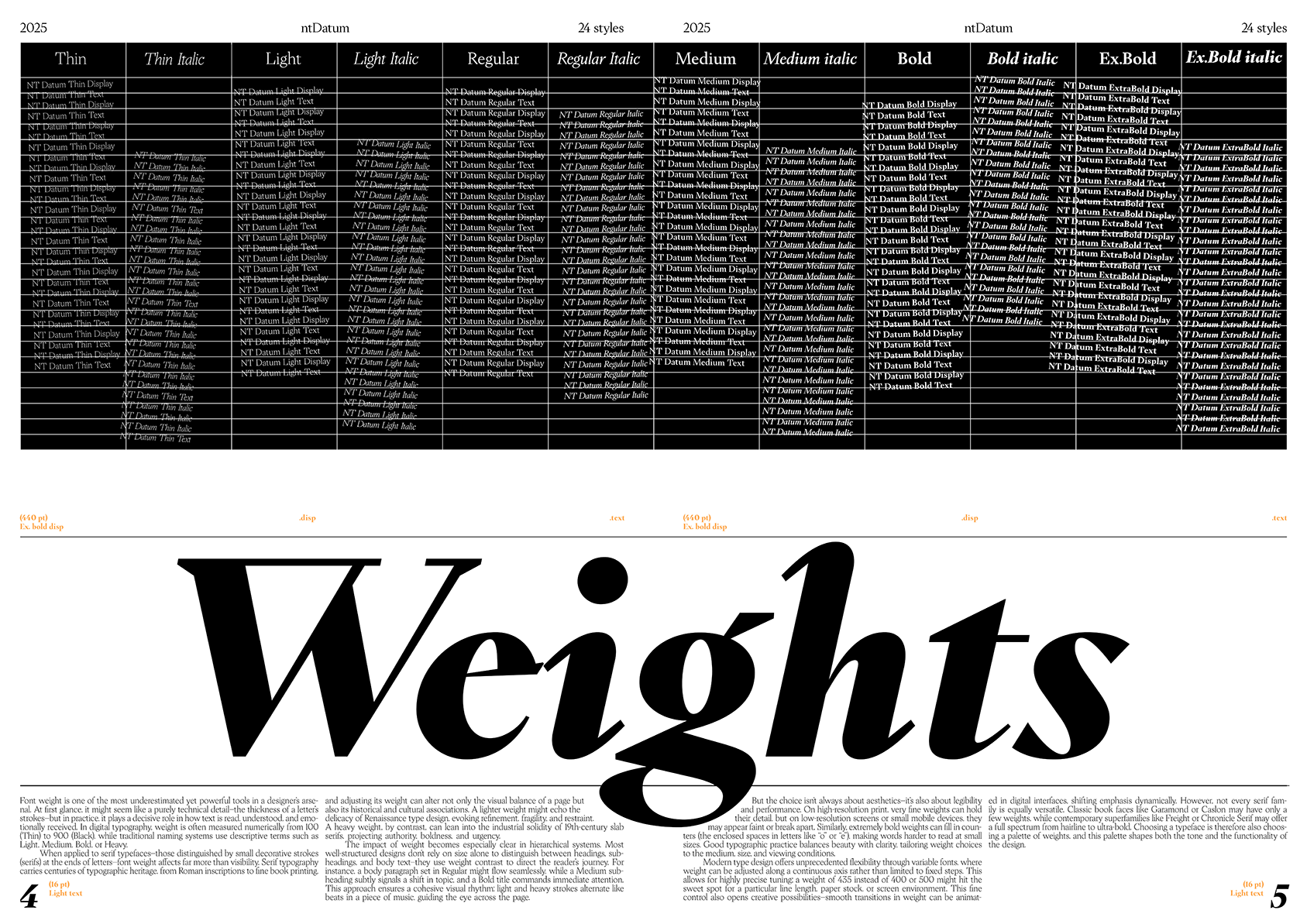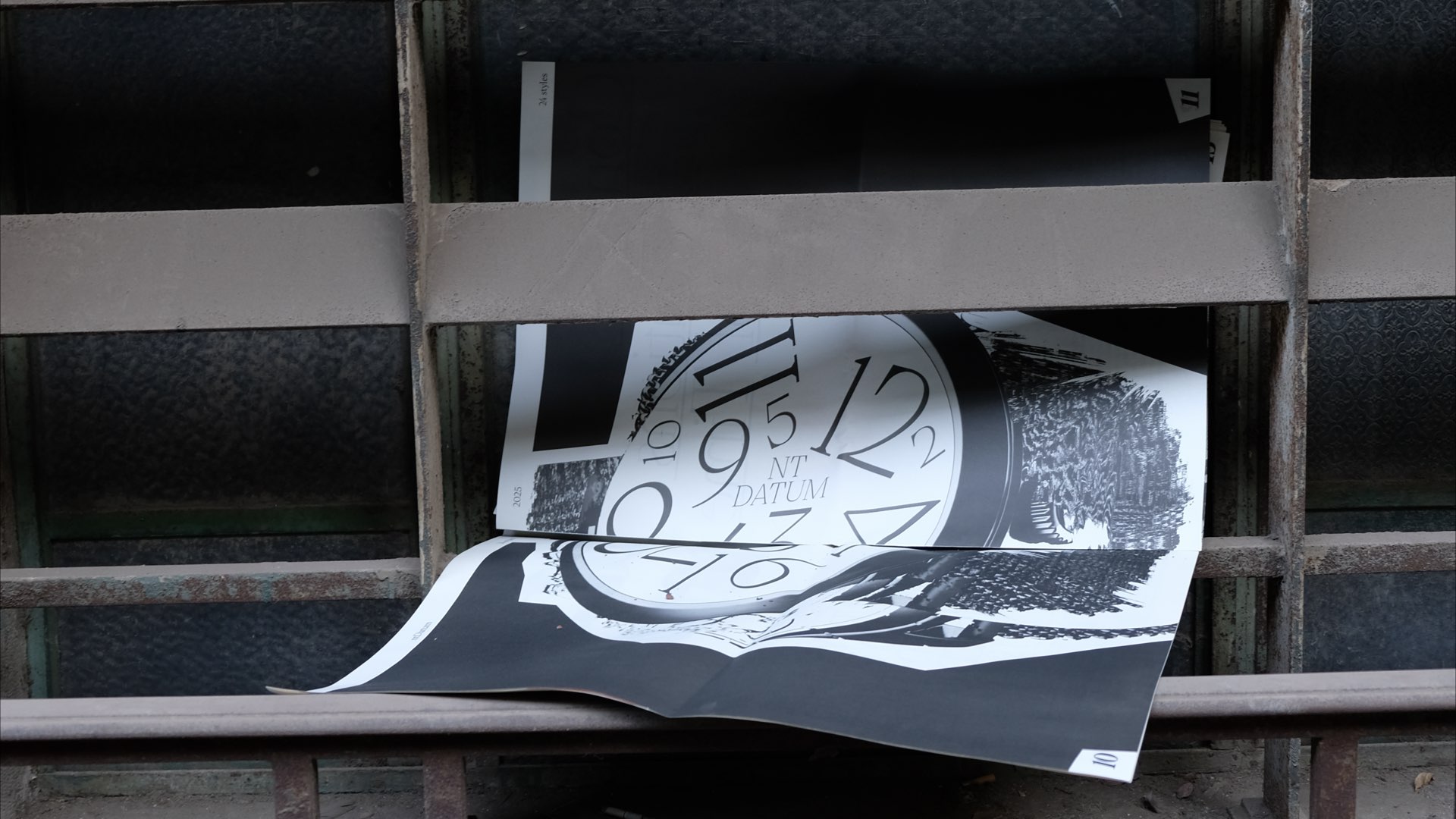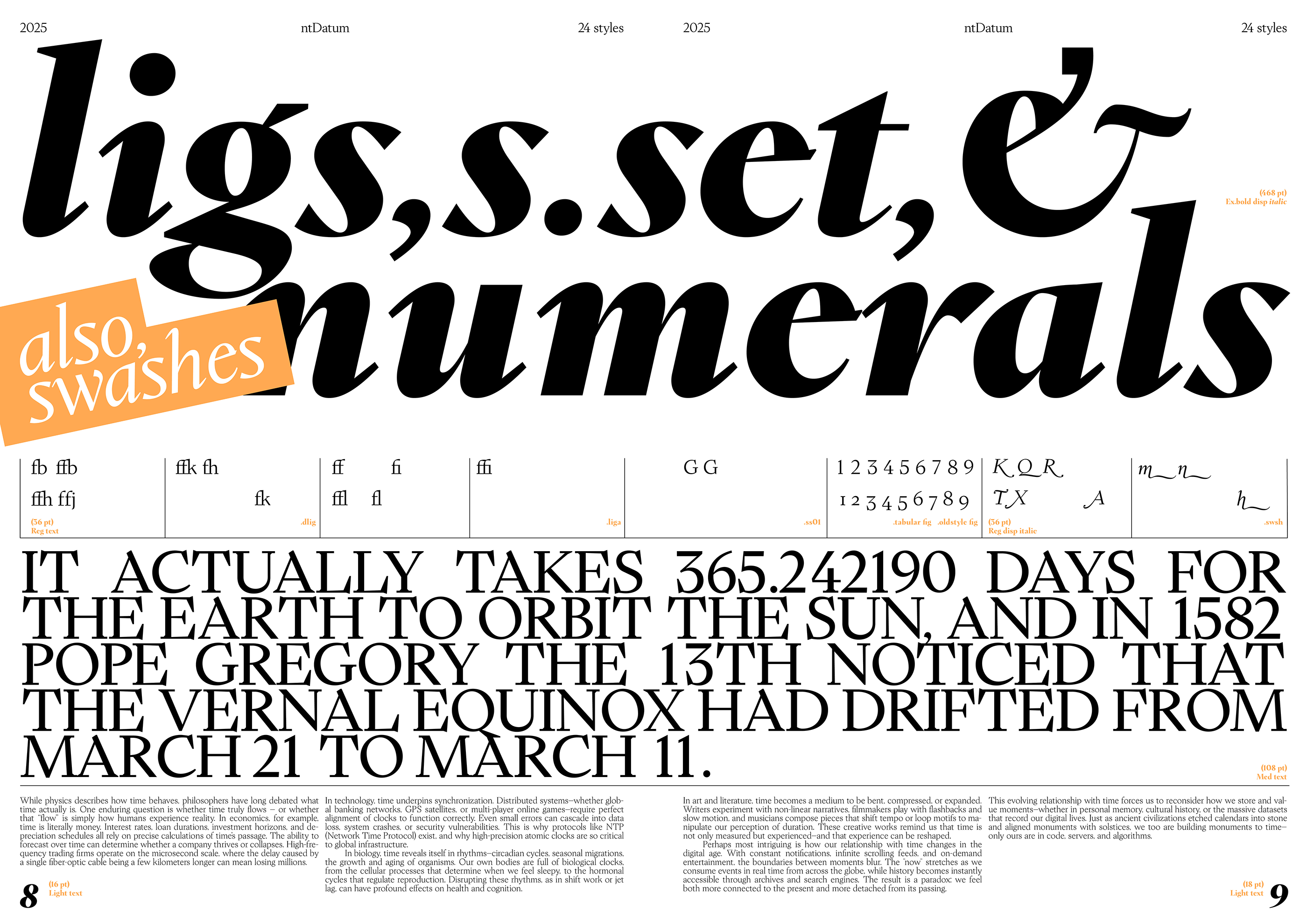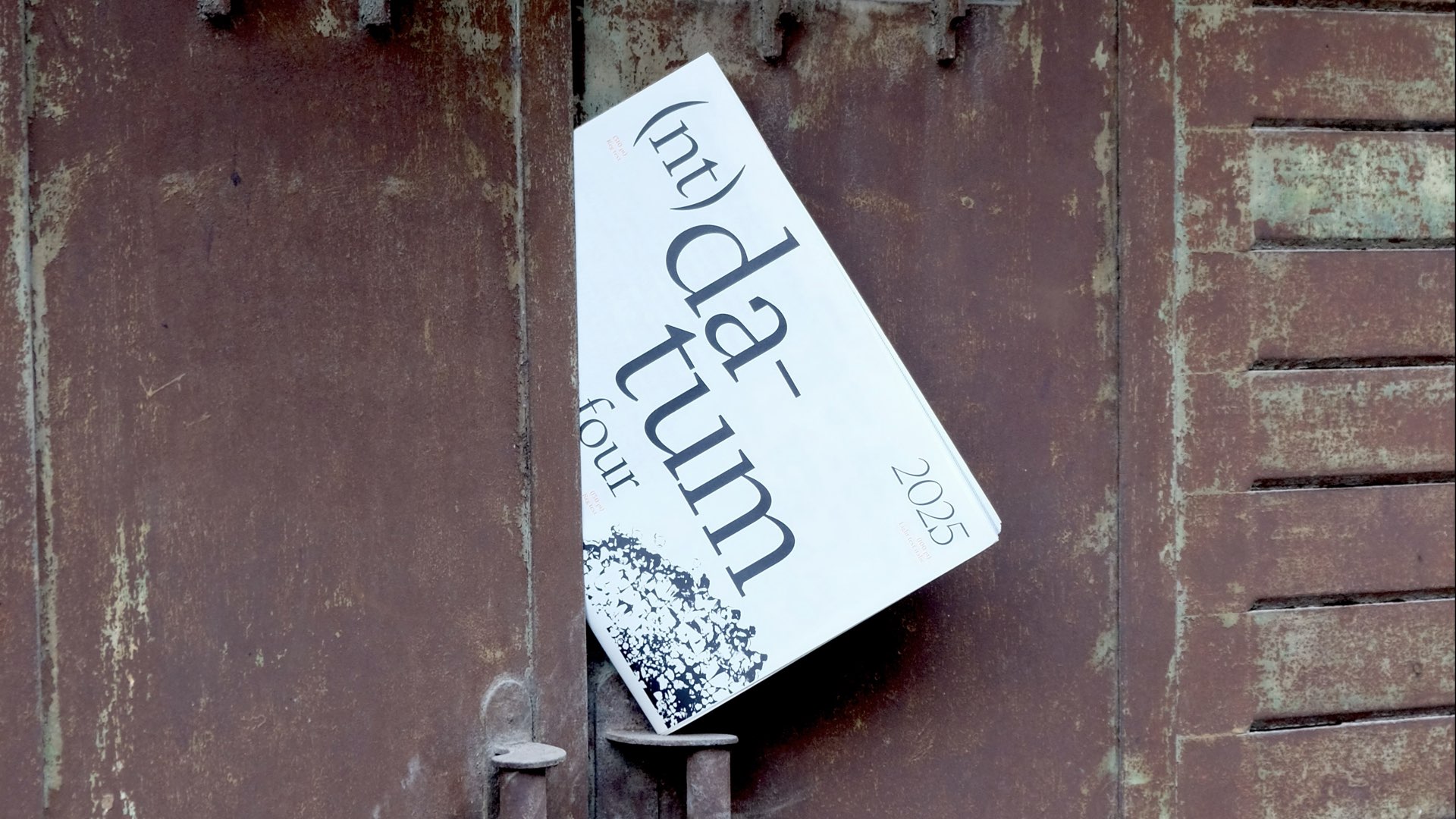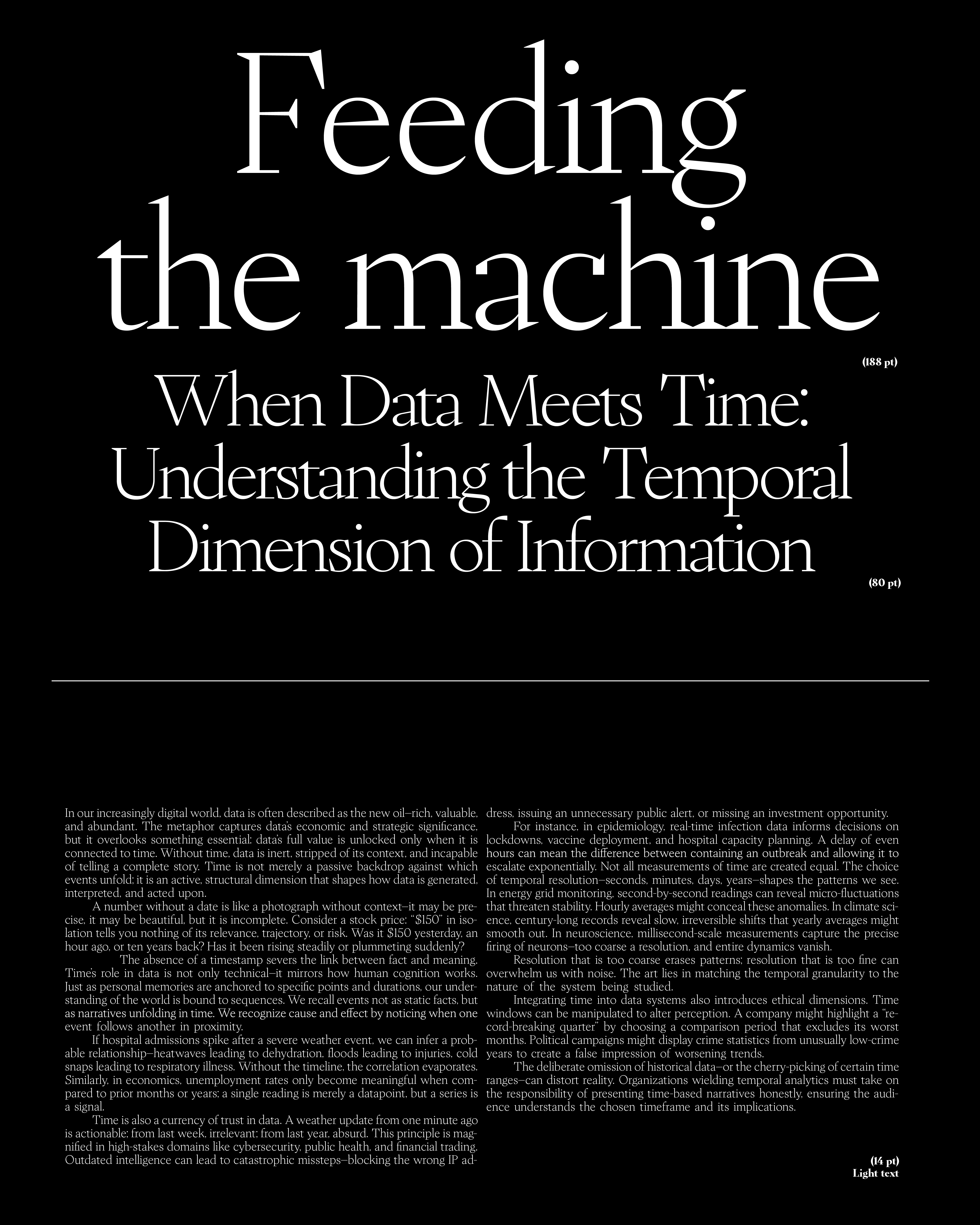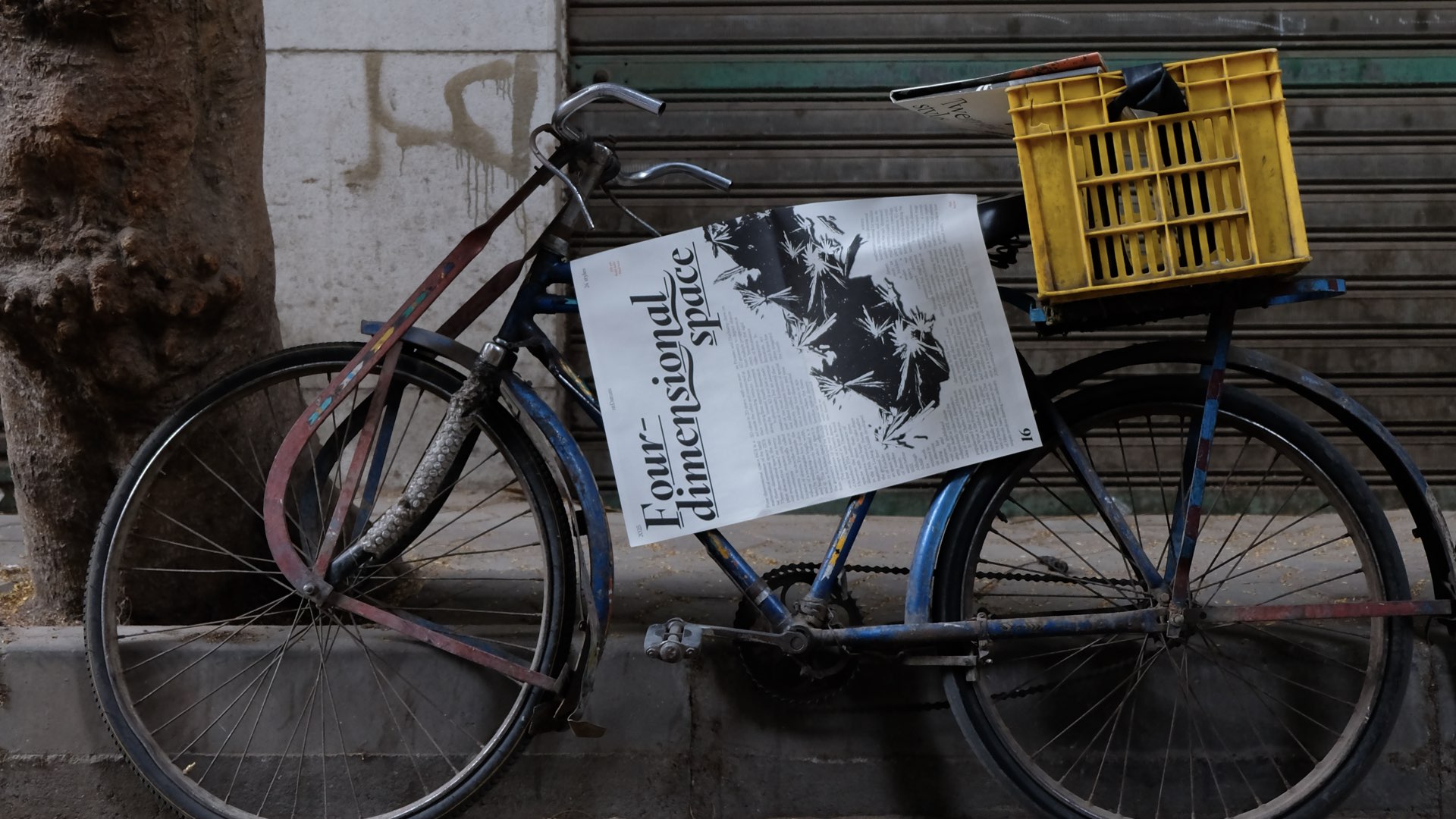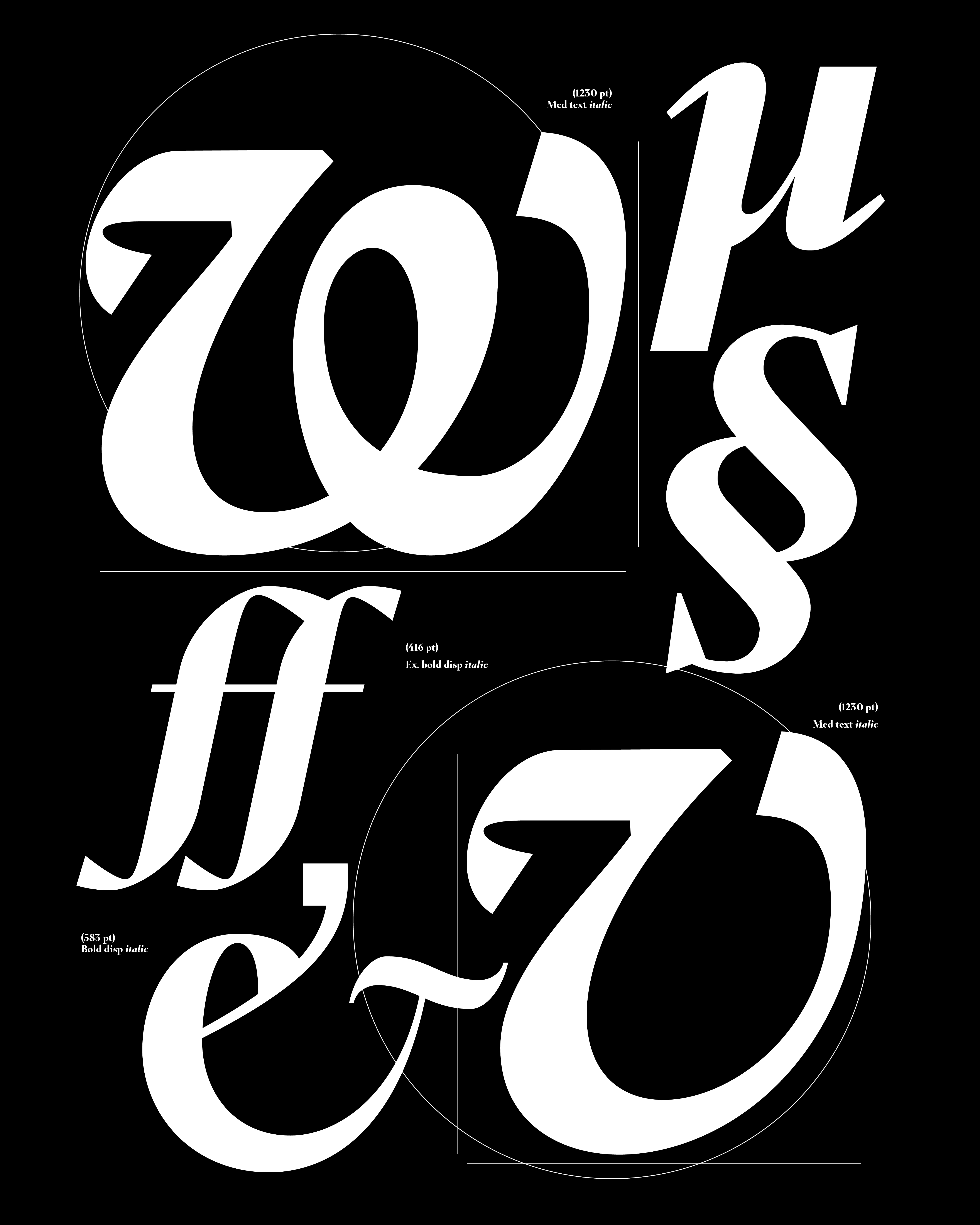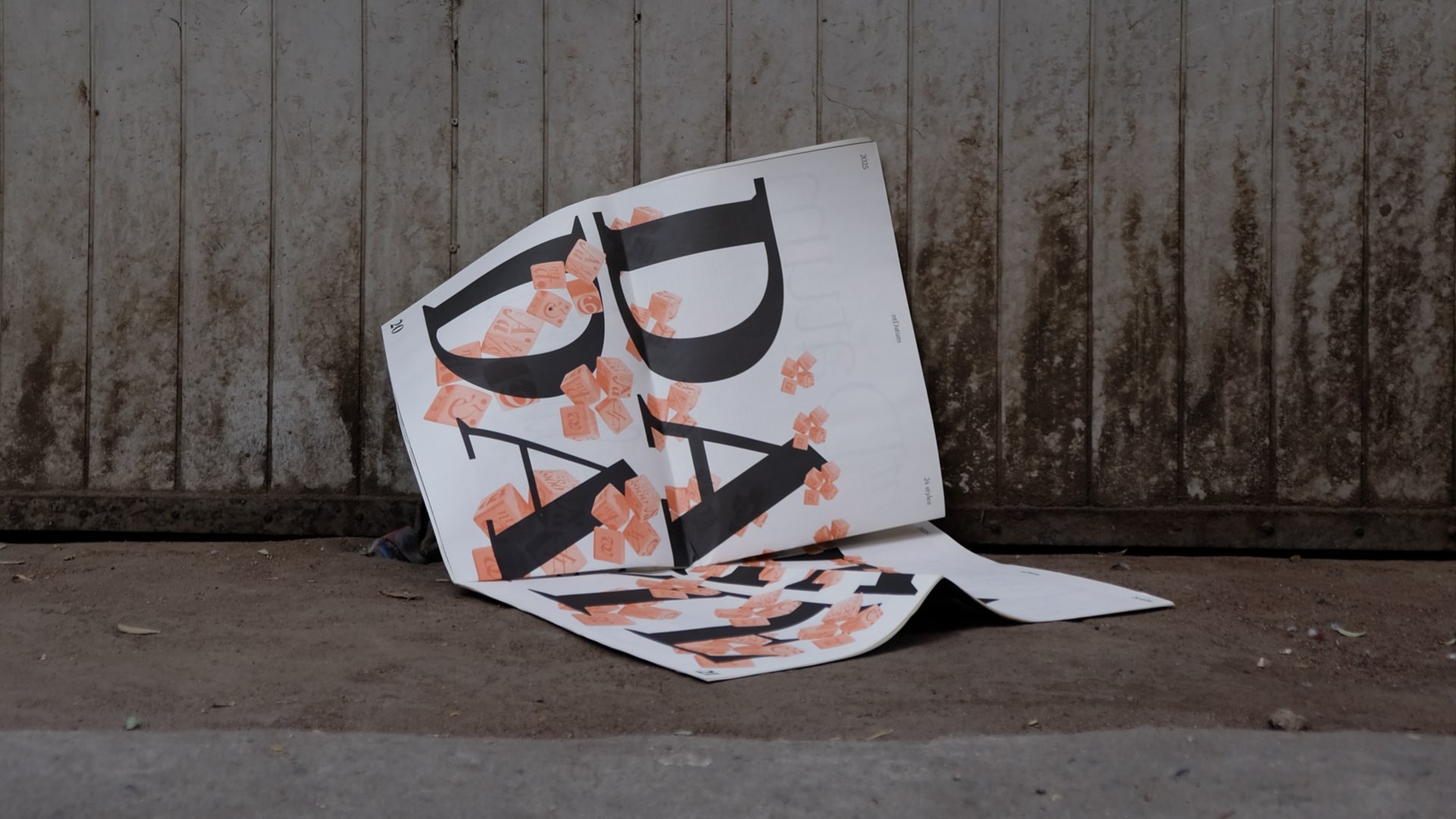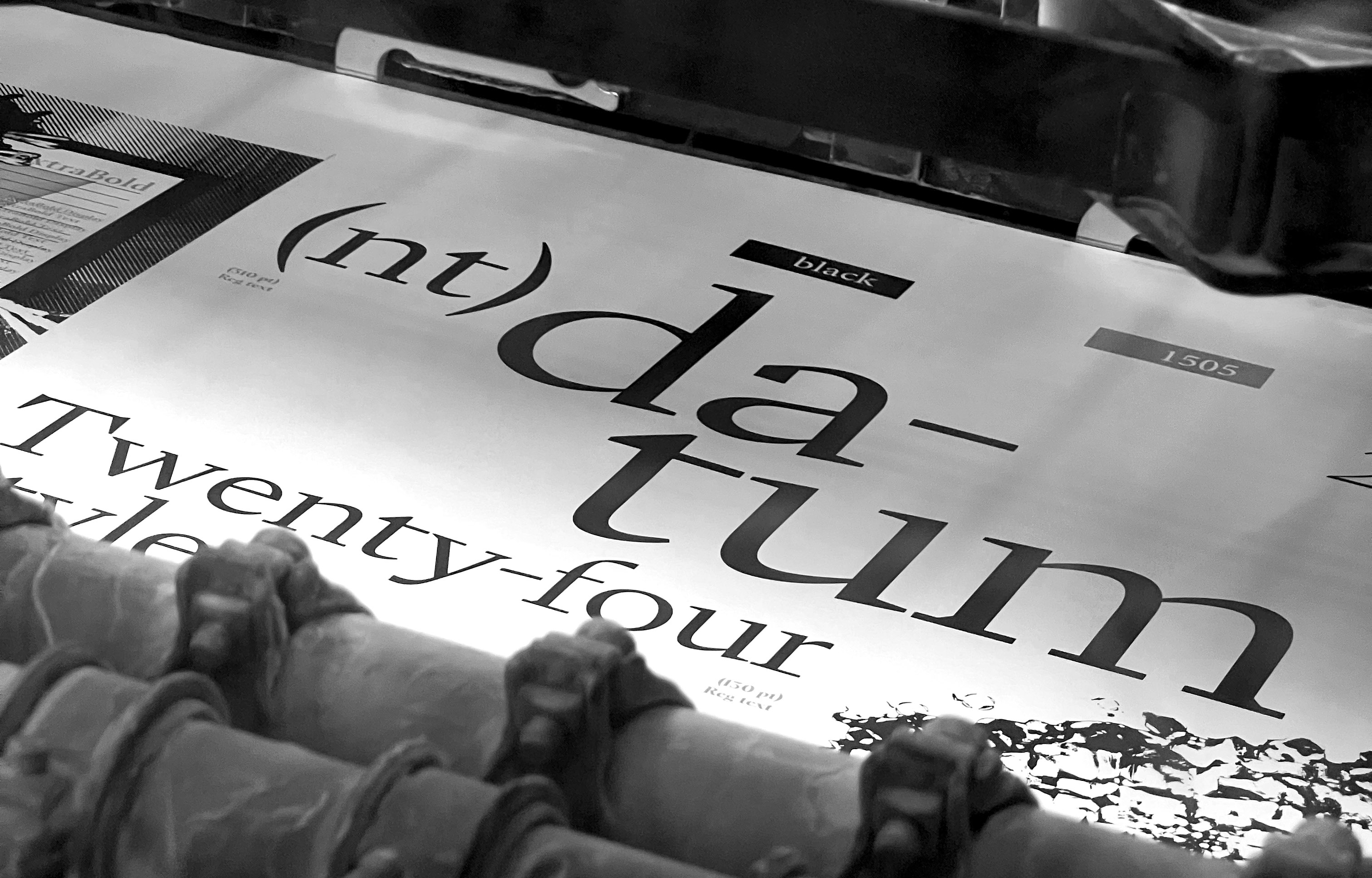
NT Datum is a serif typeface that plays with the notion of old-style typefaces and modernizing them without being a direct revival of an existing typeface; compiling 24 styles providing the user with text styles for print & display styles for headlines. Posters act as a specimen with a focus on the theme of time & data, a focal point derived from the name itself.
24 Styles